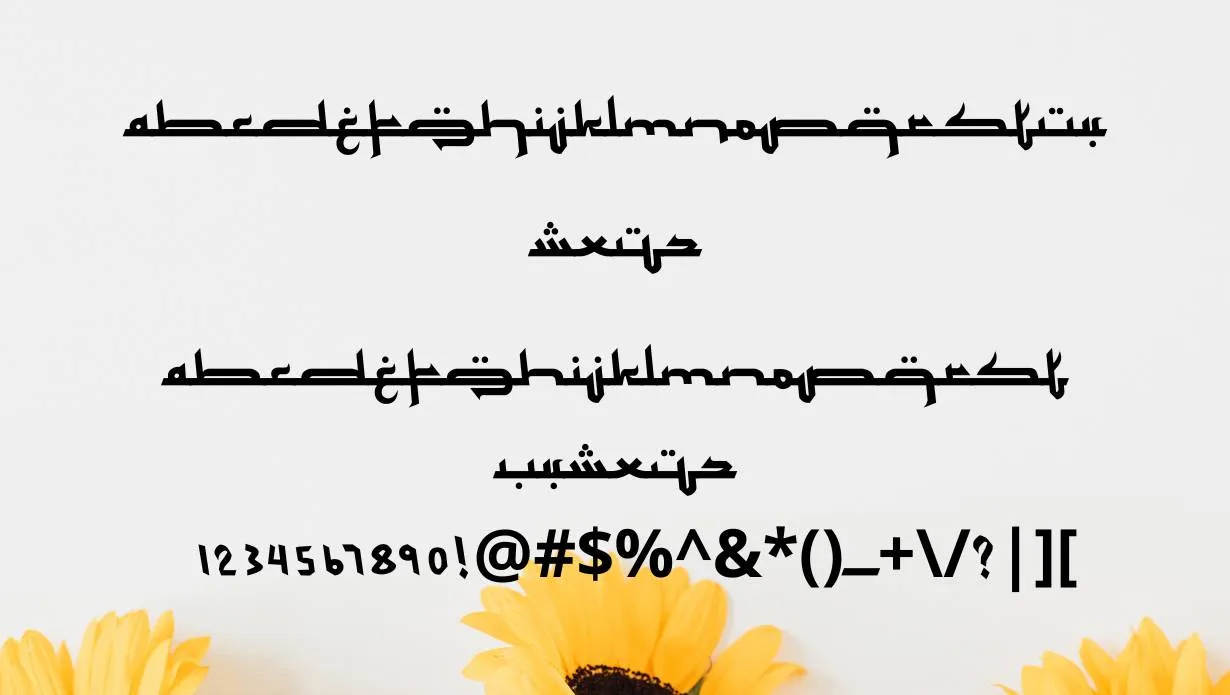
The Mukadimah font exudes an elegant and sophisticated appearance, ideal for conveying refined designs. It shines in Adobe Photoshop, creating visually classy and elegant content. With CSS integration, it bestows a sense of sophistication to web designs.
| Name | Mukadimah Font |
| Designer | Adien Gunarta |